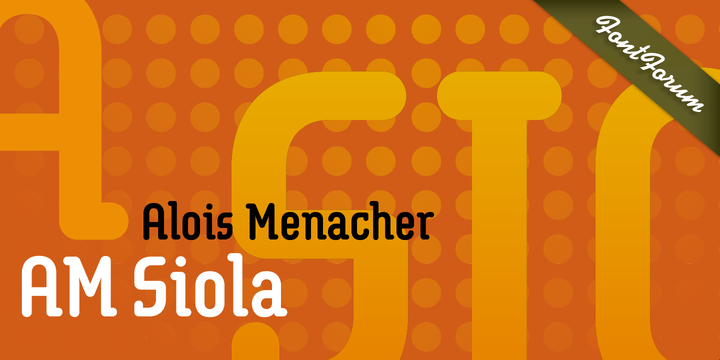
AM Siola
by URW Type Foundry
The AM Siola Font Family was designed by Alois Menacher and published by URW Type Foundry. AM Siola contains 2 styles and family package options. More about this family
AM Siola is designed as a pure display font. The starting point for this type design was a customized logotype. Logotypes usually just need the design of some characters to form a harmonious, individual lettering. Obviously, it is much more difficult to create a complete font on the basis of just a few characters. The semi-serifs partly running in the opposite direction form the basic idea for this font. AM Siola can well be used for packaging design, logo design and individual headlines for anything from advertising to posters.